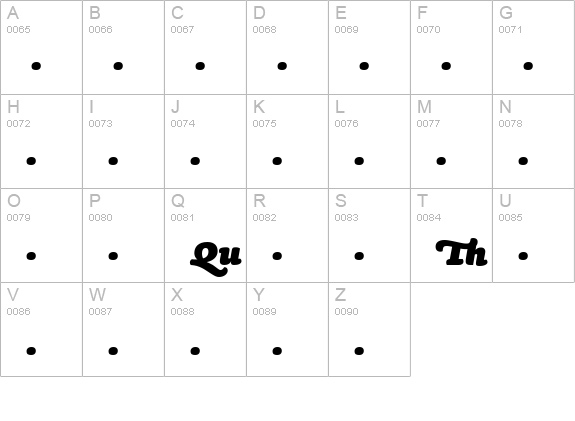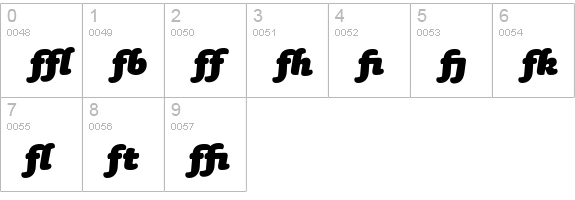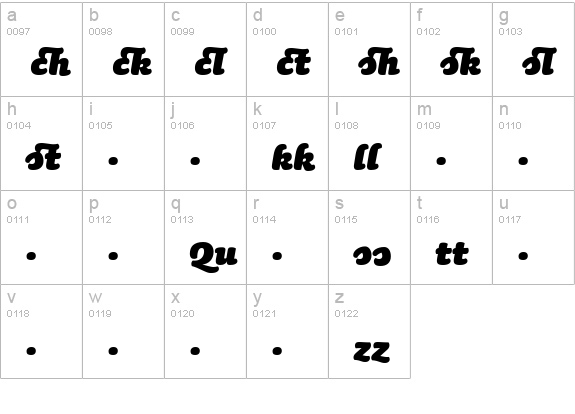
SaunaLigatures-BlackItalicSwash Font Details
Introducing SaunaLigatures-BlackItalicSwash, a captivating and elegant font that seamlessly combines the boldness of the Black weight with the refined sophistication of the Italic style. This font is designed to add a touch of glamour and flair to any project, whether it's a logo, a headline, or a wedding invitation. With its unique swashes and ligatures, SaunaLigatures-BlackItalicSwash offers an extensive range of decorative elements that effortlessly elevate your design to new heights. These artistic flourishes provide a sense of fluidity and playfulness, allowing you to create truly distinctive and eye-catching compositions. But what sets SaunaLigatures-BlackItalicSwash apart is not just its striking aesthetics. It is also the fact that it is available to you completely free of charge. Yes, you heard it right! This font is freely available to download at FontsMarket.com, ensuring that you can enjoy its beauty and versatility without any financial constraints. Whether you're a professional designer or a creative enthusiast, SaunaLigatures-BlackItalicSwash empowers you to unleash your creativity and bring your ideas to life. Its carefully crafted details and impeccable craftsmanship make it a must-have font for anyone who values quality and originality. So why wait? Dive into the world of SaunaLigatures-BlackItalicSwash and discover the endless possibilities it offers. Download it for free at FontsMarket.com and let your imagination run wild. Transform your designs into masterpieces with this exquisite font that effortlessly combines boldness, elegance, and a touch of whimsy.